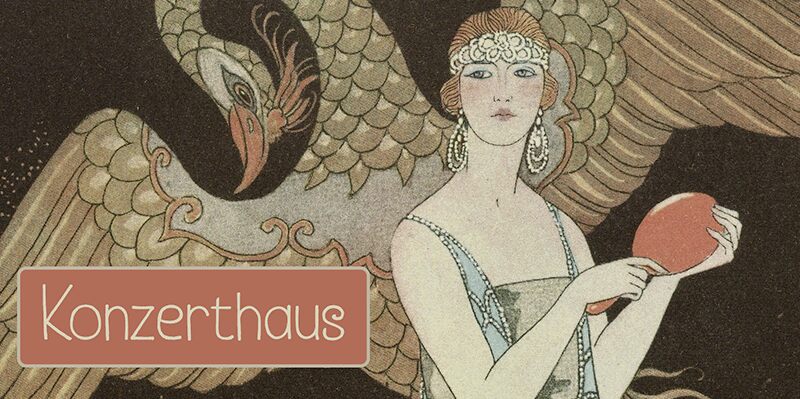
Konzerthaus font, crafted by designer Hanoded, showcases a light handwritten style that exudes elegance and charm. Its fluid lines and delicate structure create an inviting aesthetic, making it perfect for adding a personal touch to your projects. The effortless grace of Konzerthaus complements artistic ventures, event invitations, and lifestyle branding.